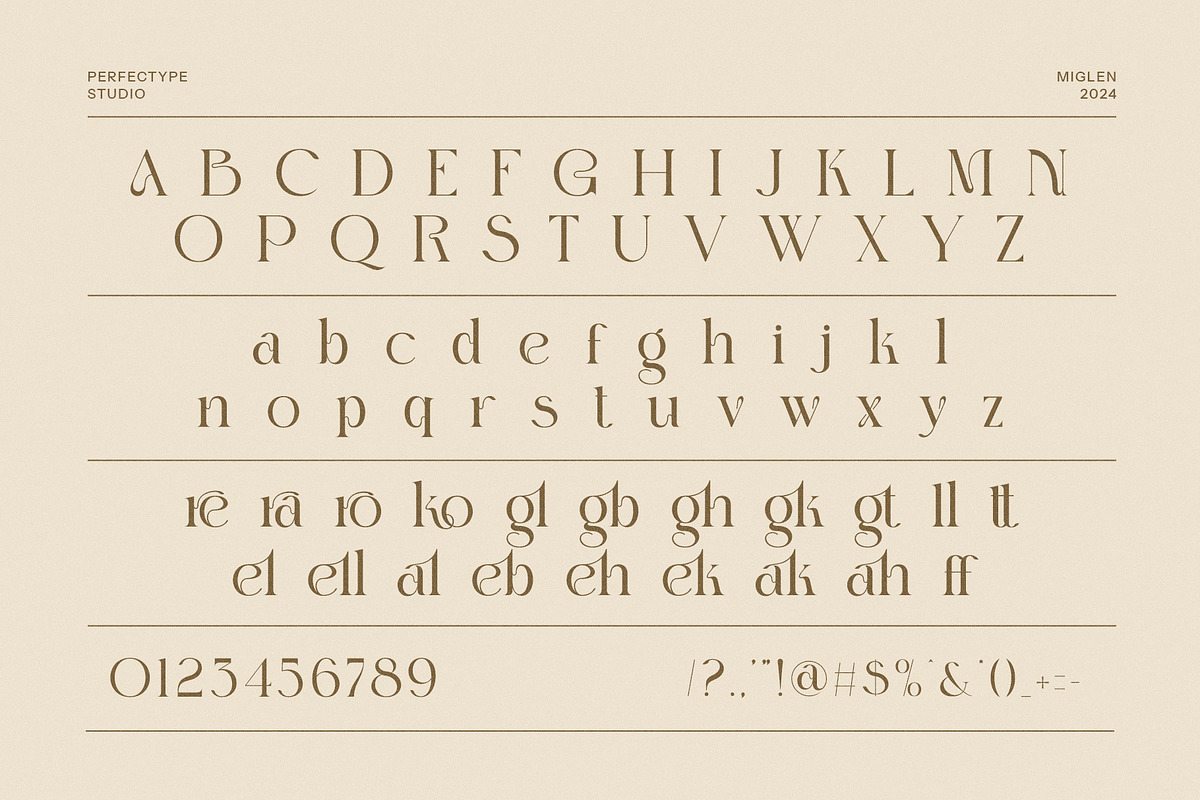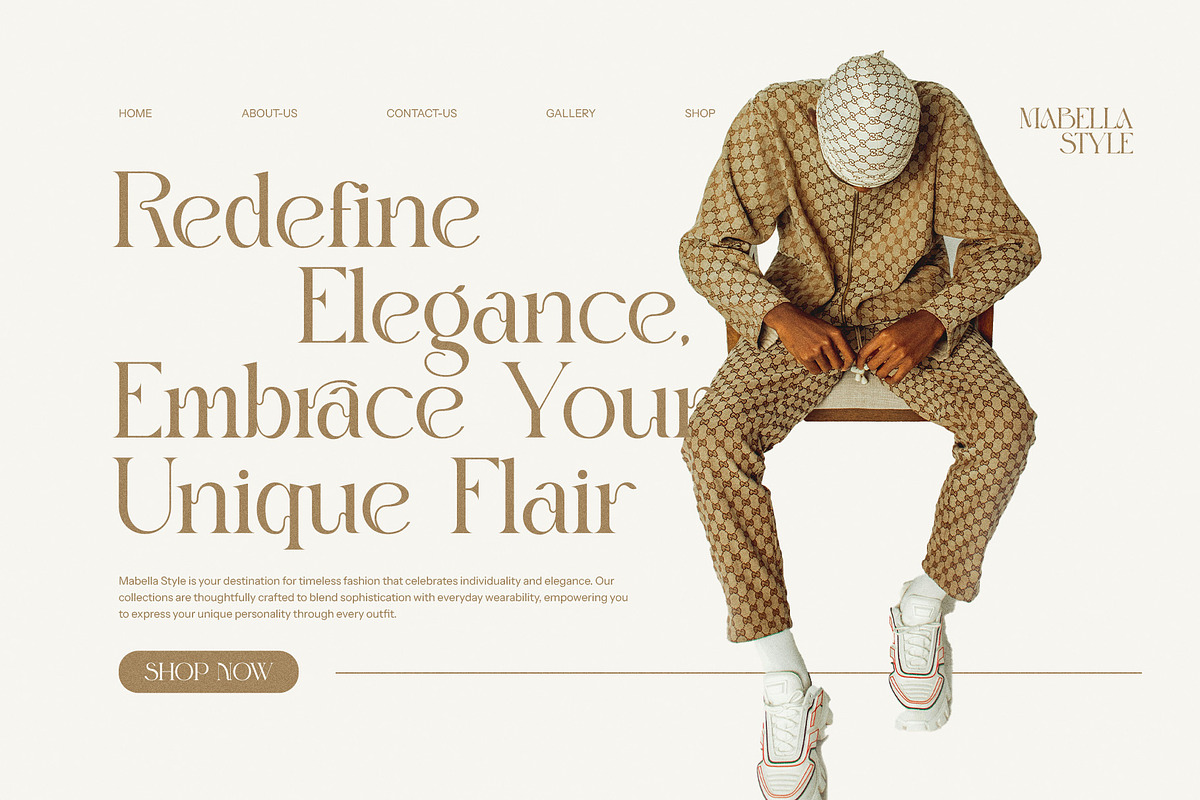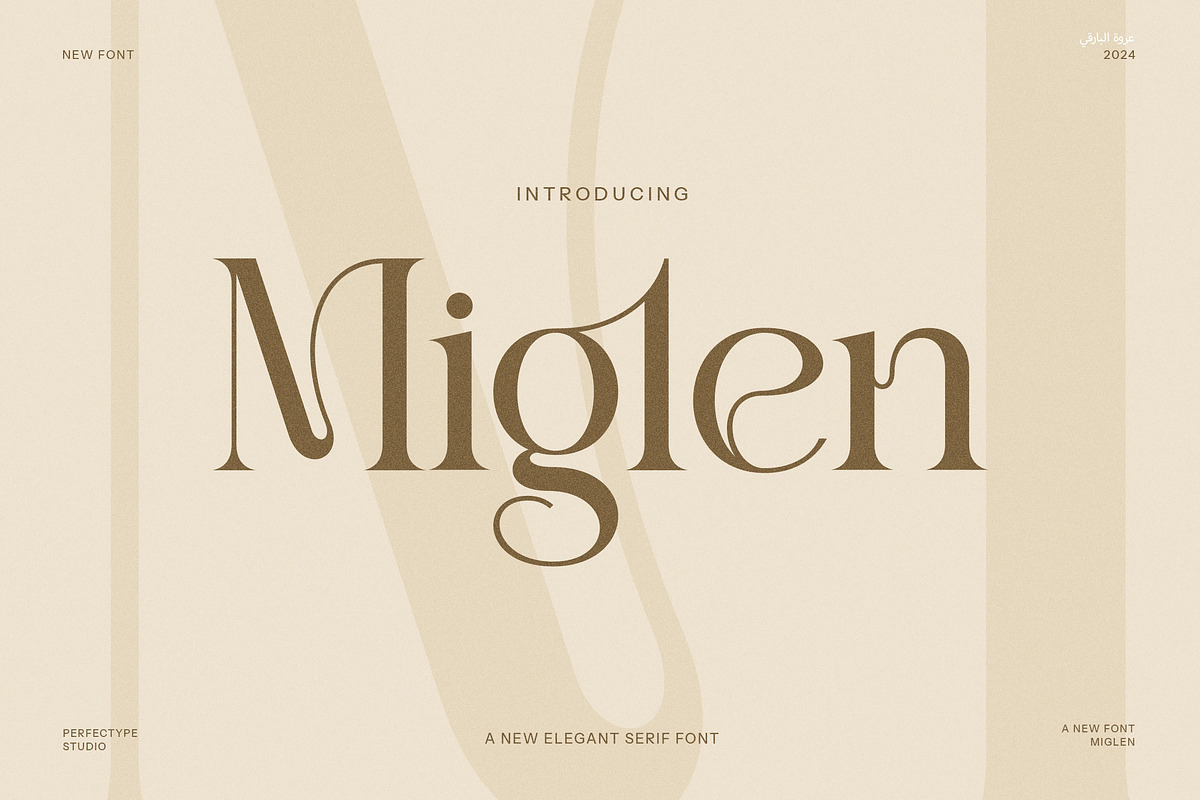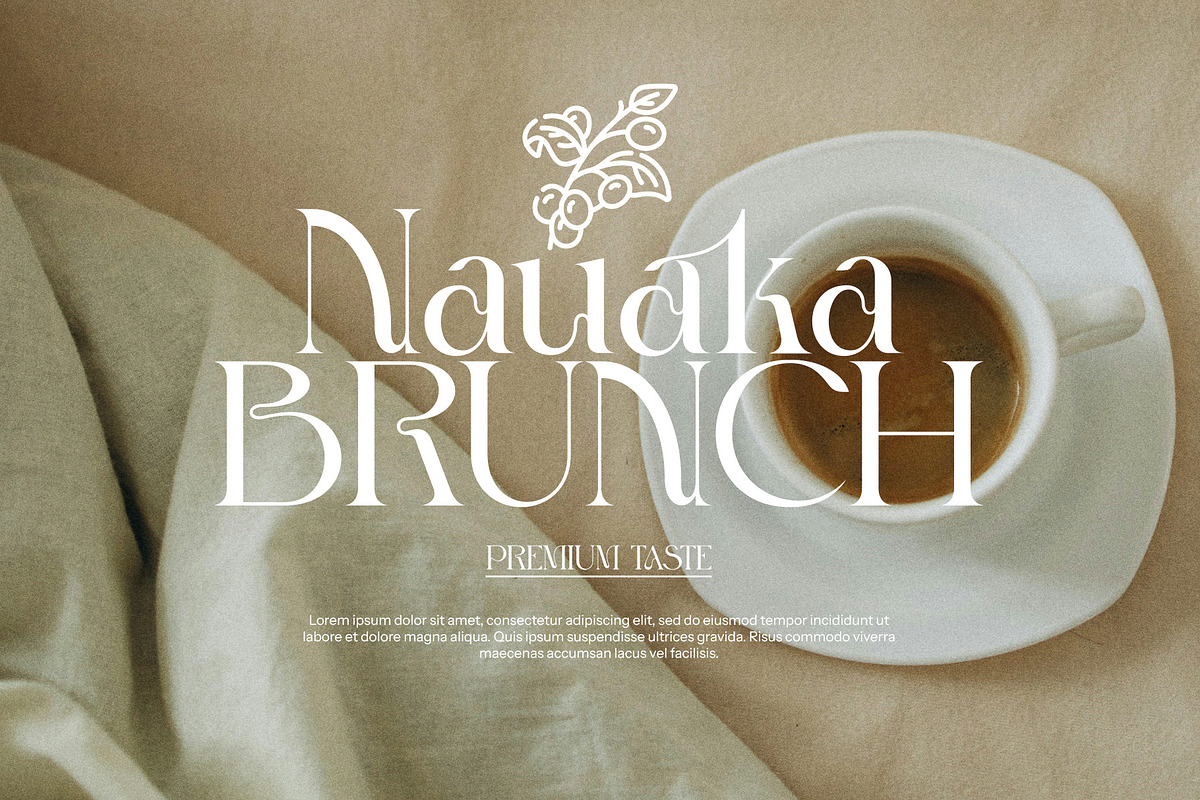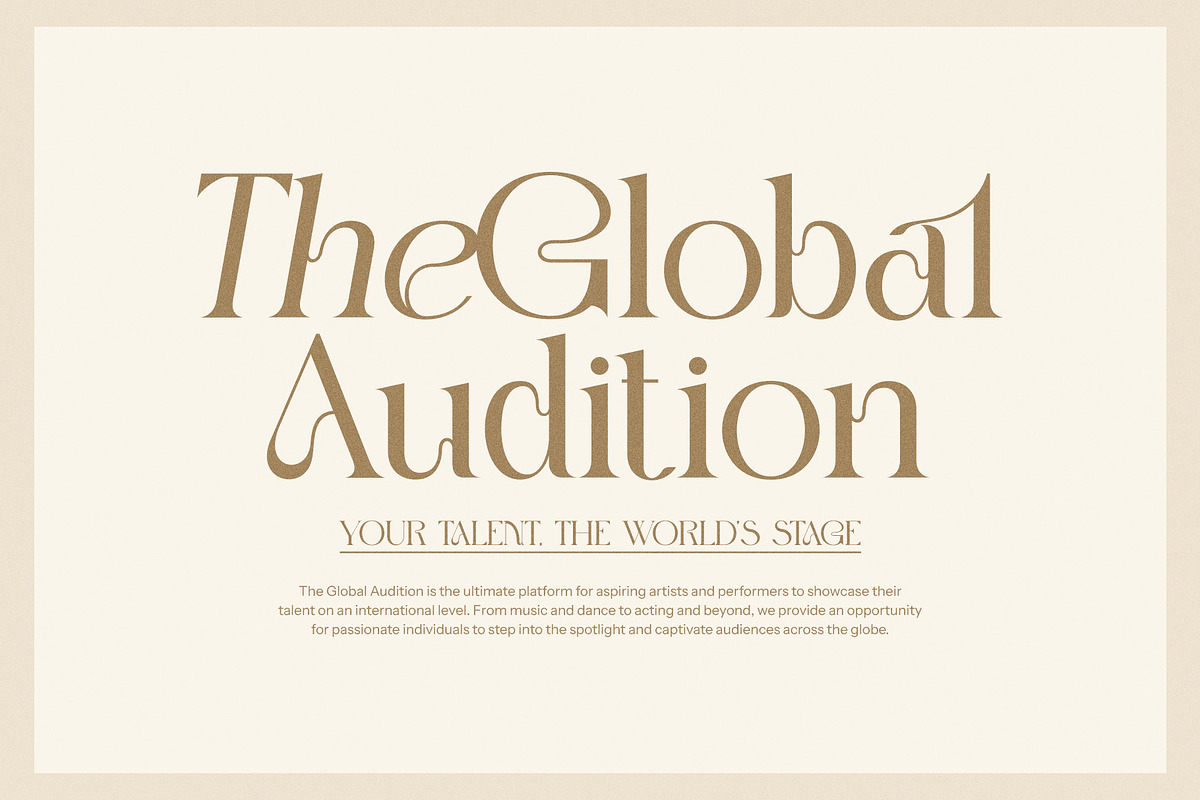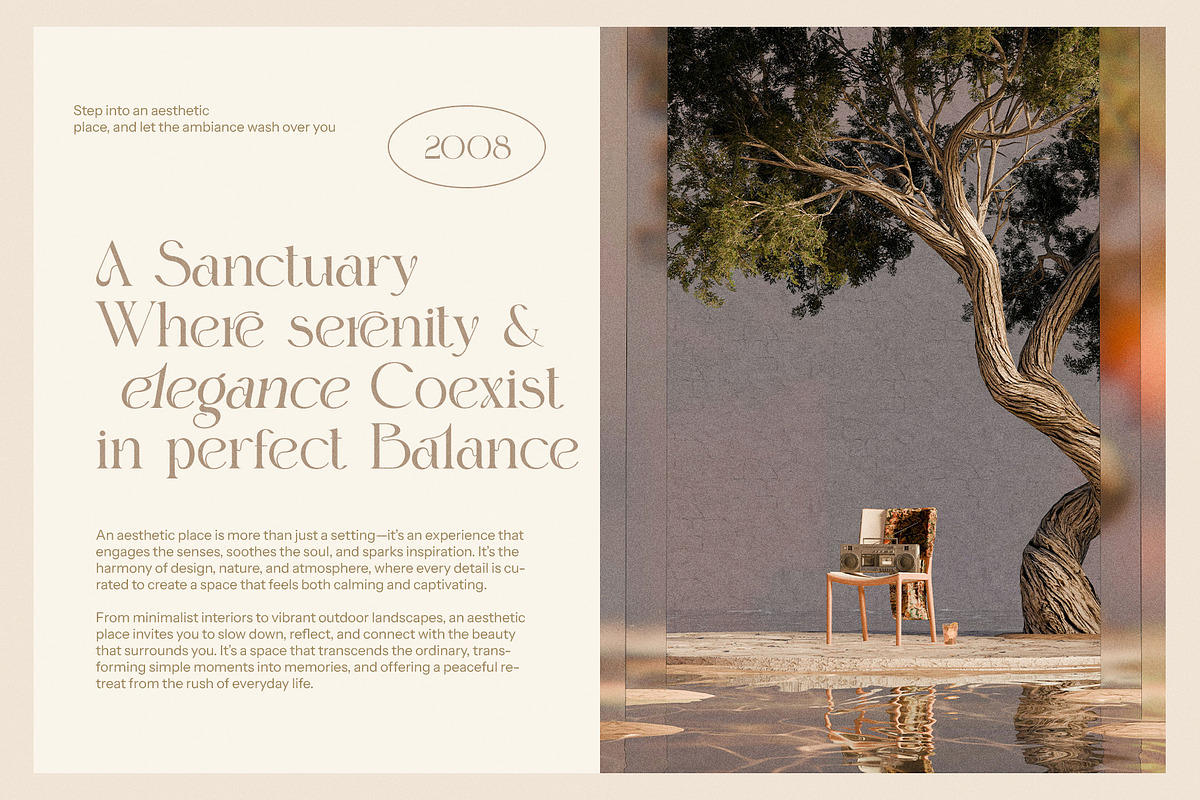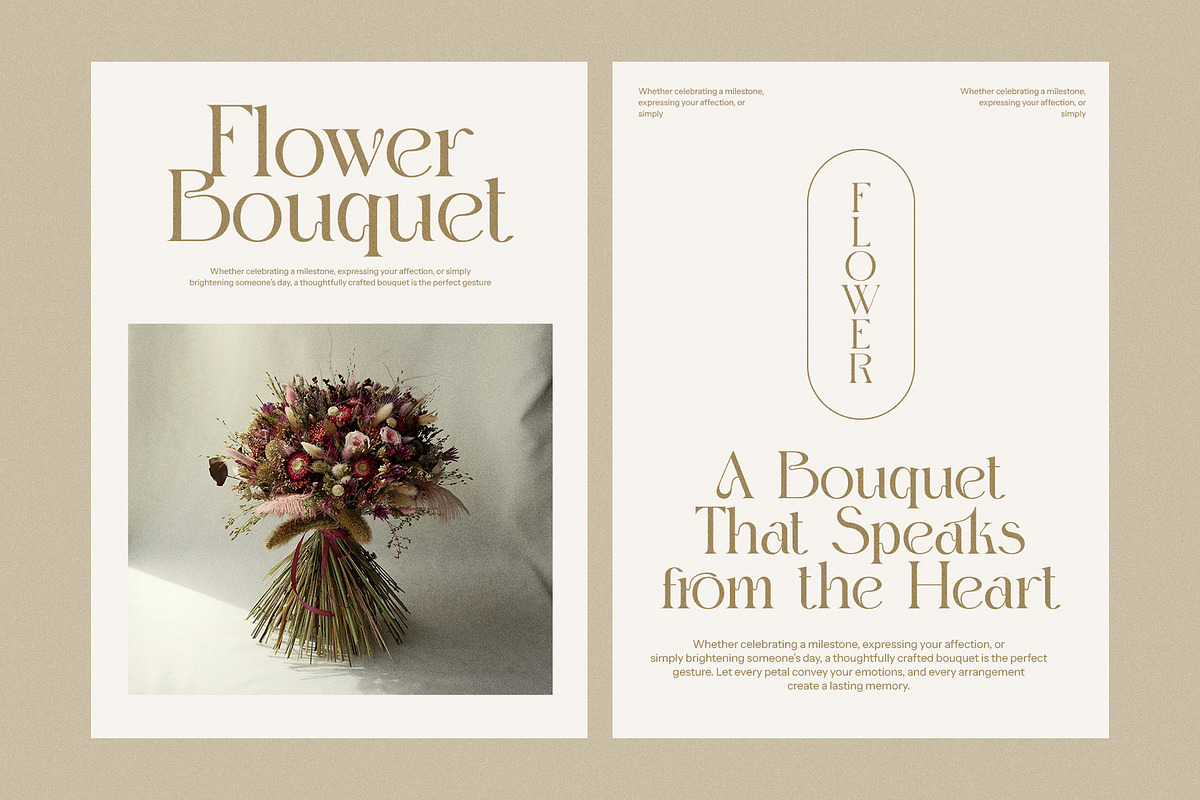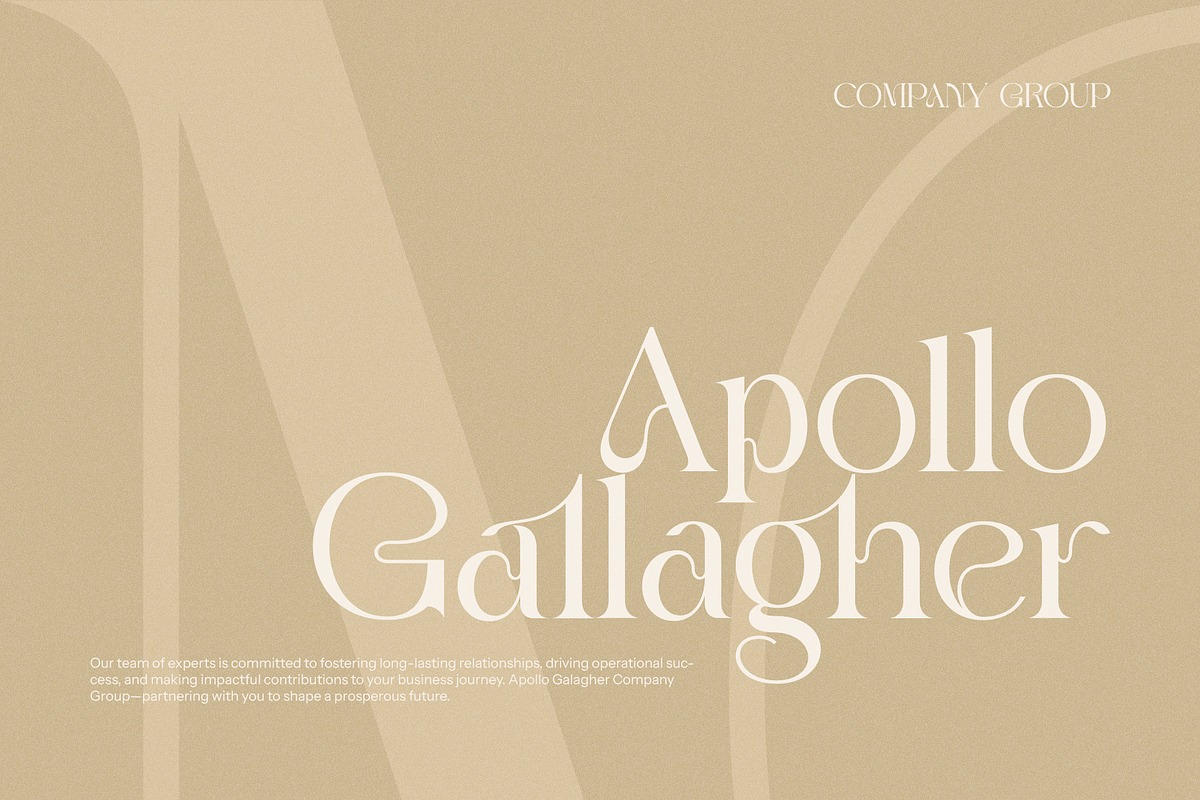
Miglen Elegant Serif Font
Miglen Elegant Serif Font is a refined and modern typeface that combines timeless elegance with contemporary appeal. Designed with exceptional attention to detail, Miglen features delicate serifs and graceful curves, creating a perfect balance between tradition and modernity. Its distinctive ligatures and alternate characters add an artistic touch, giving your designs a unique, sophisticated flair.
Ideal for luxury branding, high-end logos, and premium websites, Miglen enhances any design with its polished and stylish look. Whether you're working on magazine layouts, product packaging, or creative advertisements, this font brings a level of refinement that resonates with upscale audiences. Its versatility makes it suitable for a wide range of applications, including boutique designs, food branding, and editorial projects.
Miglen’s elegant letterforms ensure legibility and elegance across both print and digital media. Its unique ligature and alternate features offer ample creative freedom, allowing designers to craft distinctive, custom typographic treatments that stand out. Whether creating a brand identity from scratch or refining an existing one, Miglen provides the perfect foundation for high-end, memorable designs.
With its modern charm and classic sophistication, Miglen Elegant Serif Font is an essential tool for designers looking to elevate their projects. From websites to advertisements, this versatile and elegant typeface gives your work a professional and polished finish, ensuring your brand or design leaves a lasting impression. Perfect for any project requiring an air of luxury, Miglen is the go-to choice for premium, sophisticated design.